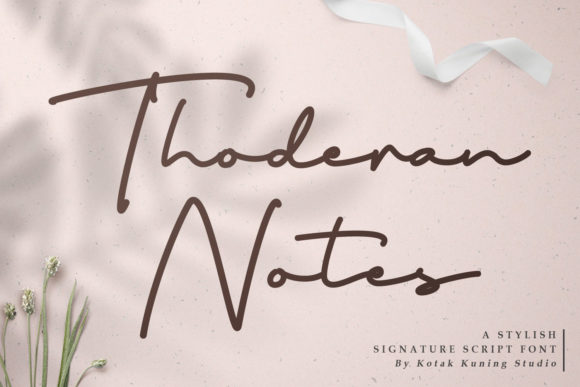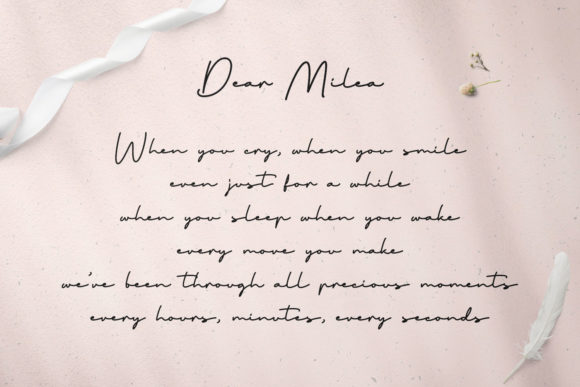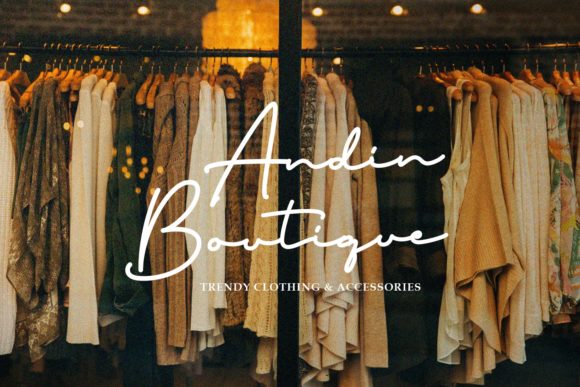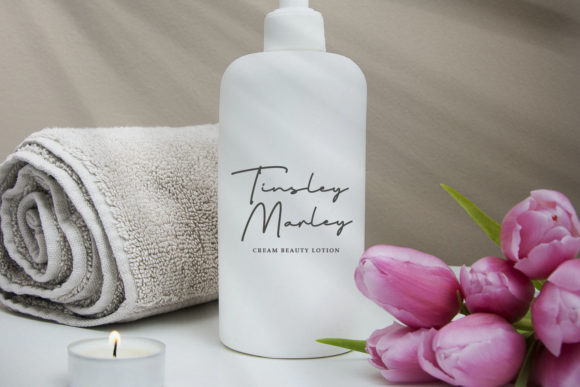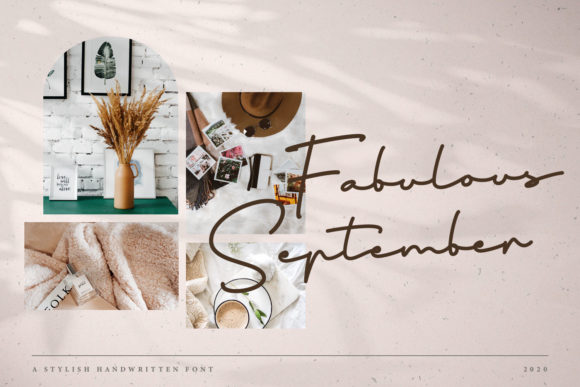
Thoderan Notes Font
About Thoderan Notes Font
Thoderan Notes is an elegant and flowing handwritten font. It has beautiful and well-balanced characters that are suited for designs such as logos, stationery art, quotes, book covers, magazines, branding, and much more. Add it to your most unique ideas to make them stand out.